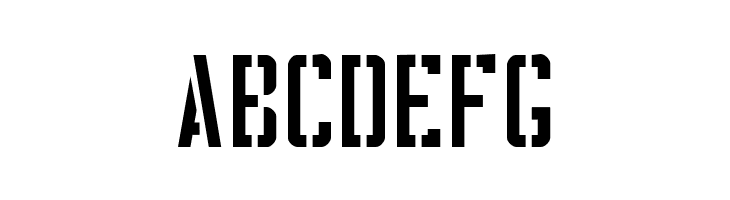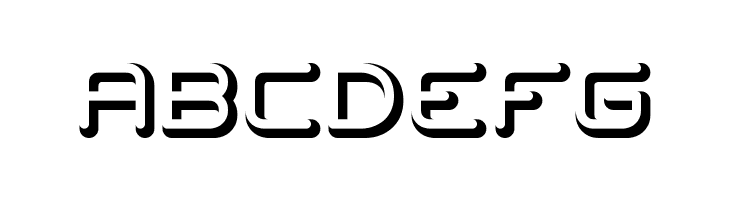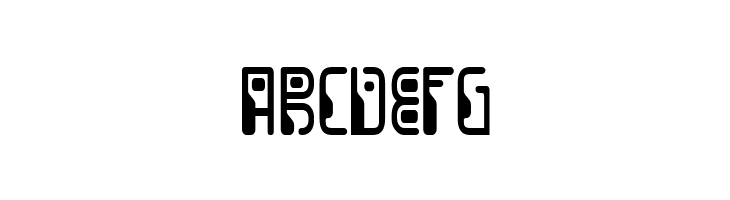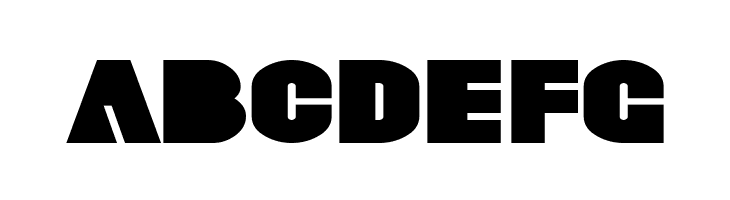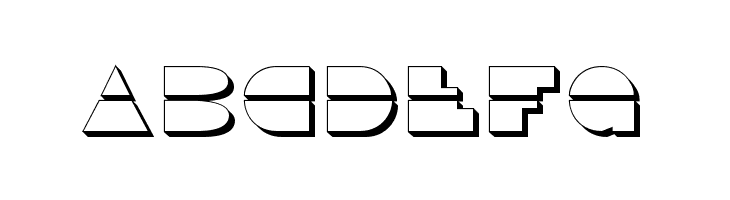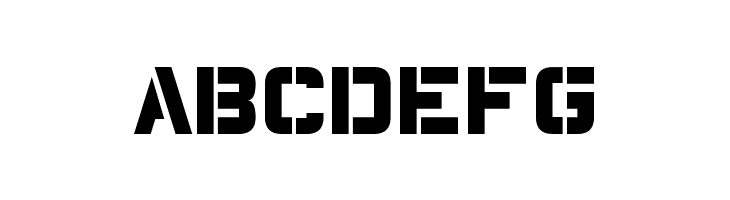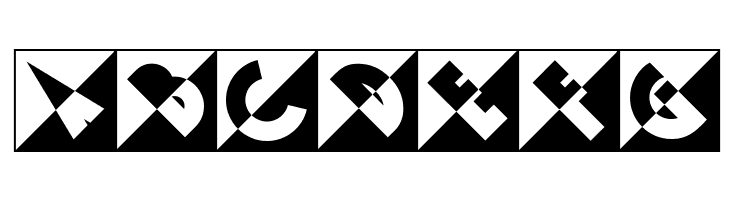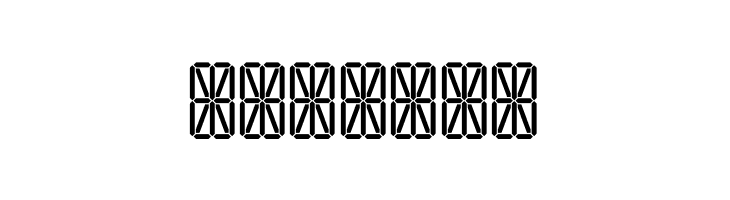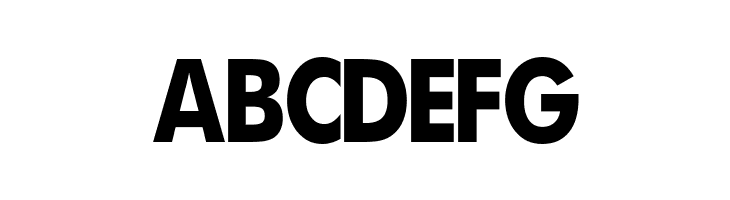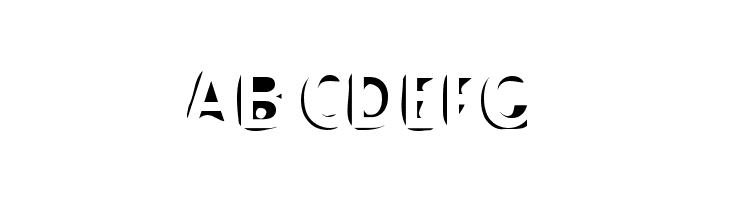
A bold, stencil-style font with high contrast and geometric shapes.
A bold, stencil-style font with sharp angles and an industrial feel.
A bold, futuristic font with sharp angles and geometric shapes.
A bold, futuristic font with geometric and angular design elements.
A bold, stencil-like font with geometric and industrial design elements.
A futuristic, geometric font with a stencil-like design and bold, rounded edges.
A bold, stencil-like font with thick, blocky strokes and sharp edges.
A bold, geometric 3D font with a futuristic and playful style.
A bold, angular, and decorative font with a striking abstract design.
A bold, geometric stencil font with a military-industrial aesthetic.
A decorative, abstract font with geometric shapes and bold contrasts.
A bold, stencil-style font with an industrial and rugged appearance.
A bold, geometric font with a futuristic, grid-like design.
A bold, high-contrast font with geometric and decorative elements.
A playful font with bug-themed embellishments on bold, rounded characters.
A bold, geometric font with a structured, architectural style.
A chaotic, decorative font with sharp, jagged edges and overlapping strokes.
A decorative and geometric font with intricate line work and a modern artistic style.
A bold, playful font with a stencil-like, decorative style.